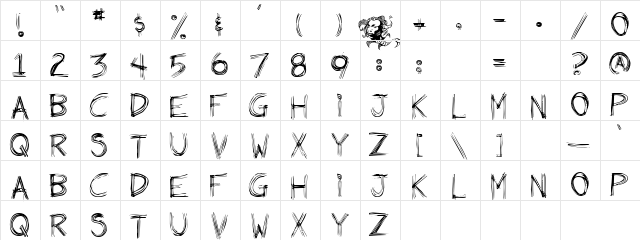
Carbon Design Regular
Design Context for Carbon Design Typeface
Carbon Design is a composed and adaptable typeface that performs quietly and consistently across a wide range of design contexts.